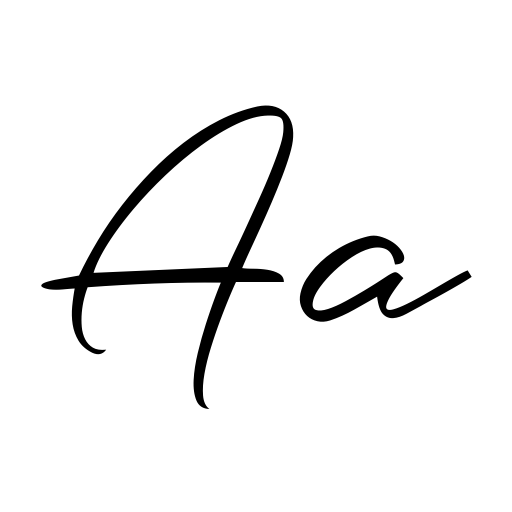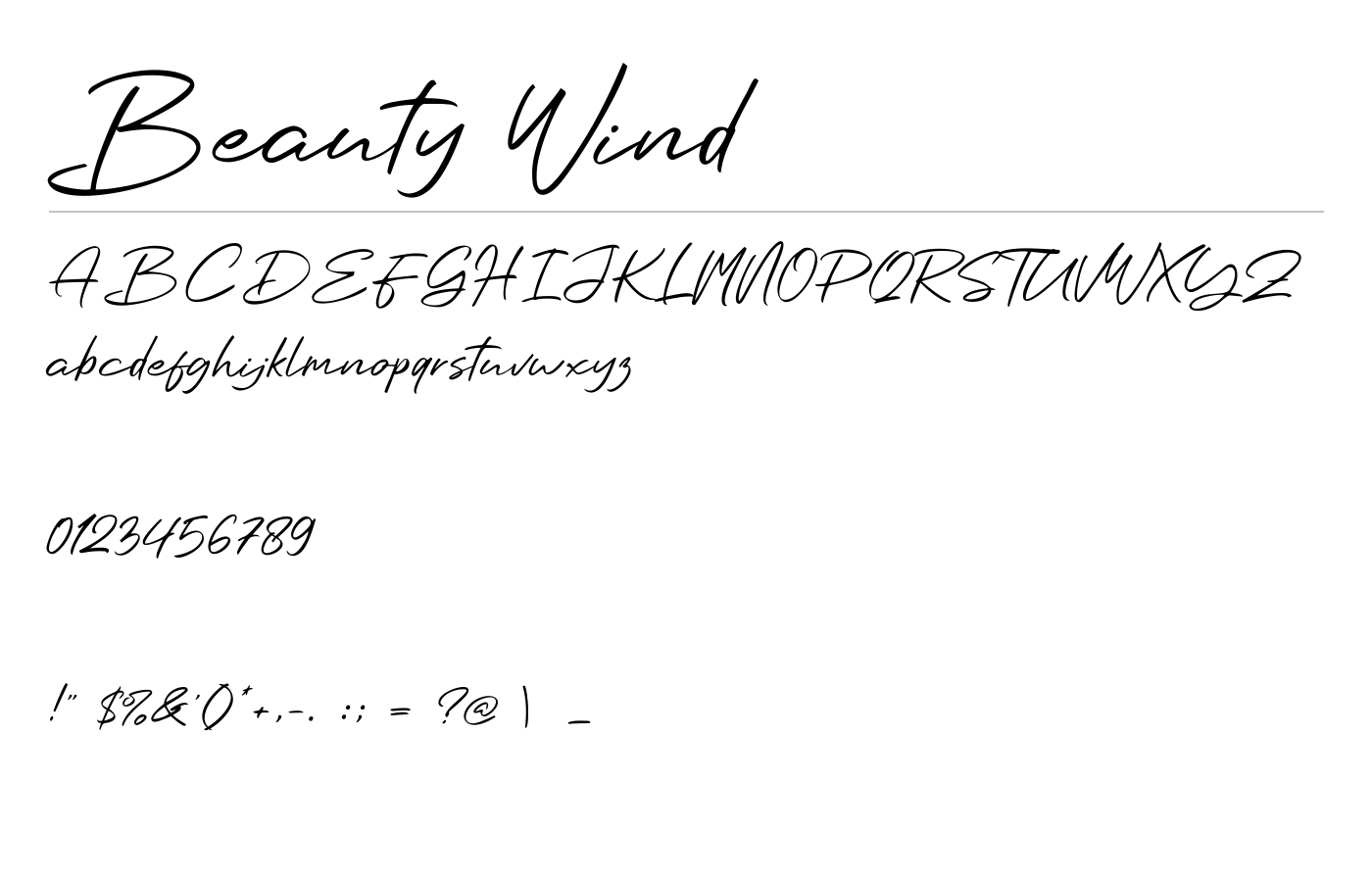
Beauty Wind is a delicate, elegant script font with a handwritten feel, featuring slender, flowing letterforms and a smooth, slightly casual style. Its light weight and airy spacing make it perfect for feminine branding, invitations, and fashion-related projects where a graceful, personal touch is desired. This font works beautifully in headlines and logos that seek a refined yet approachable aesthetic.
Beauty Wind Font
About Beauty Wind Font